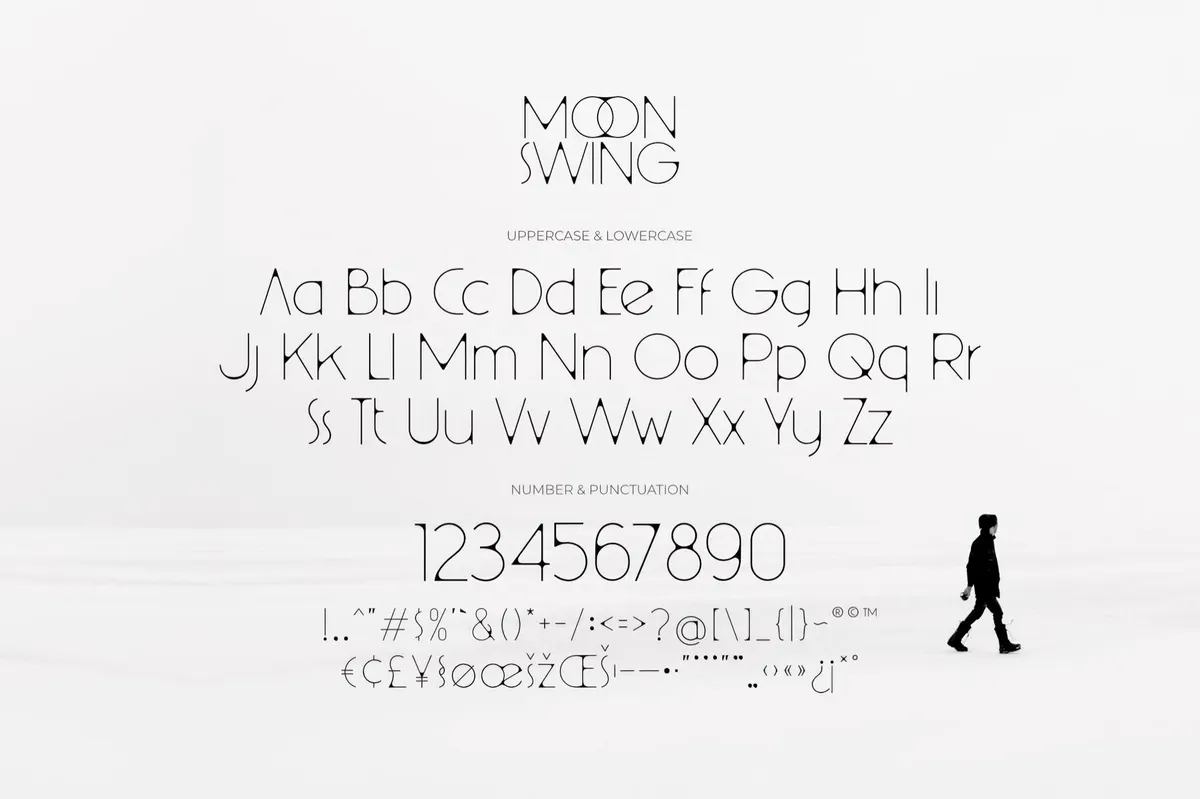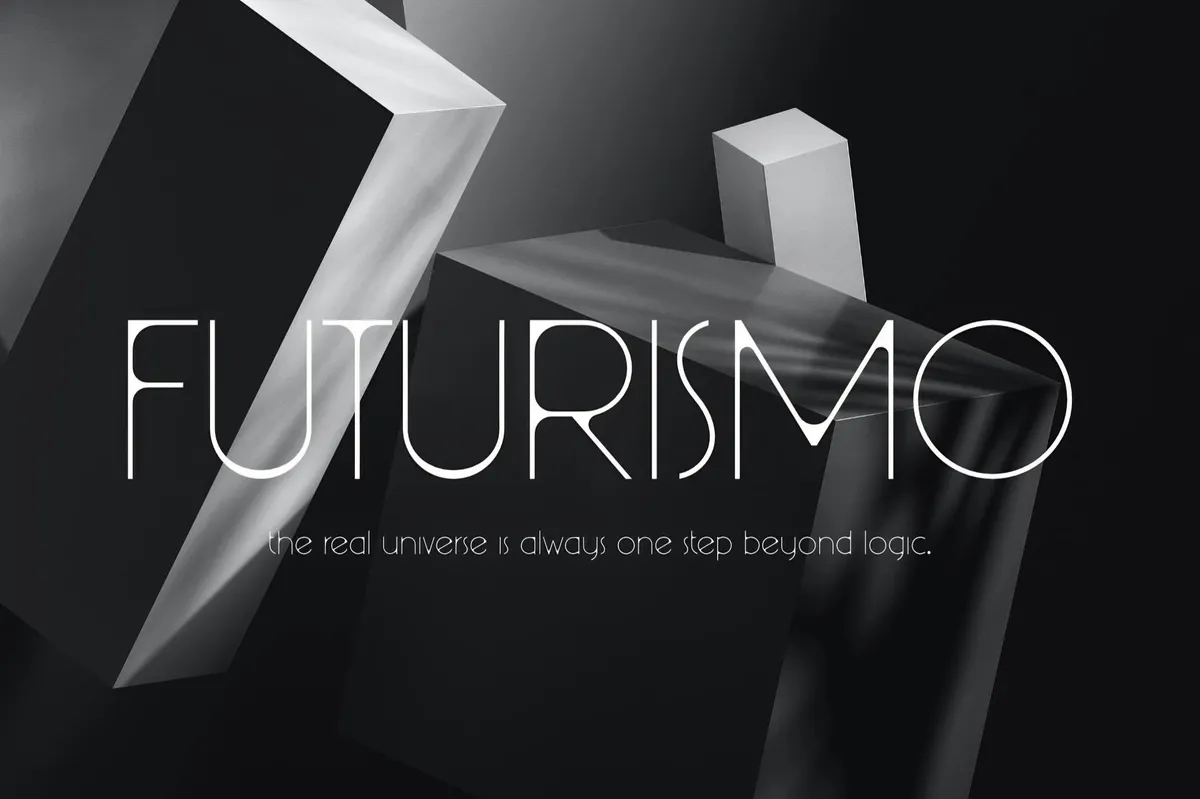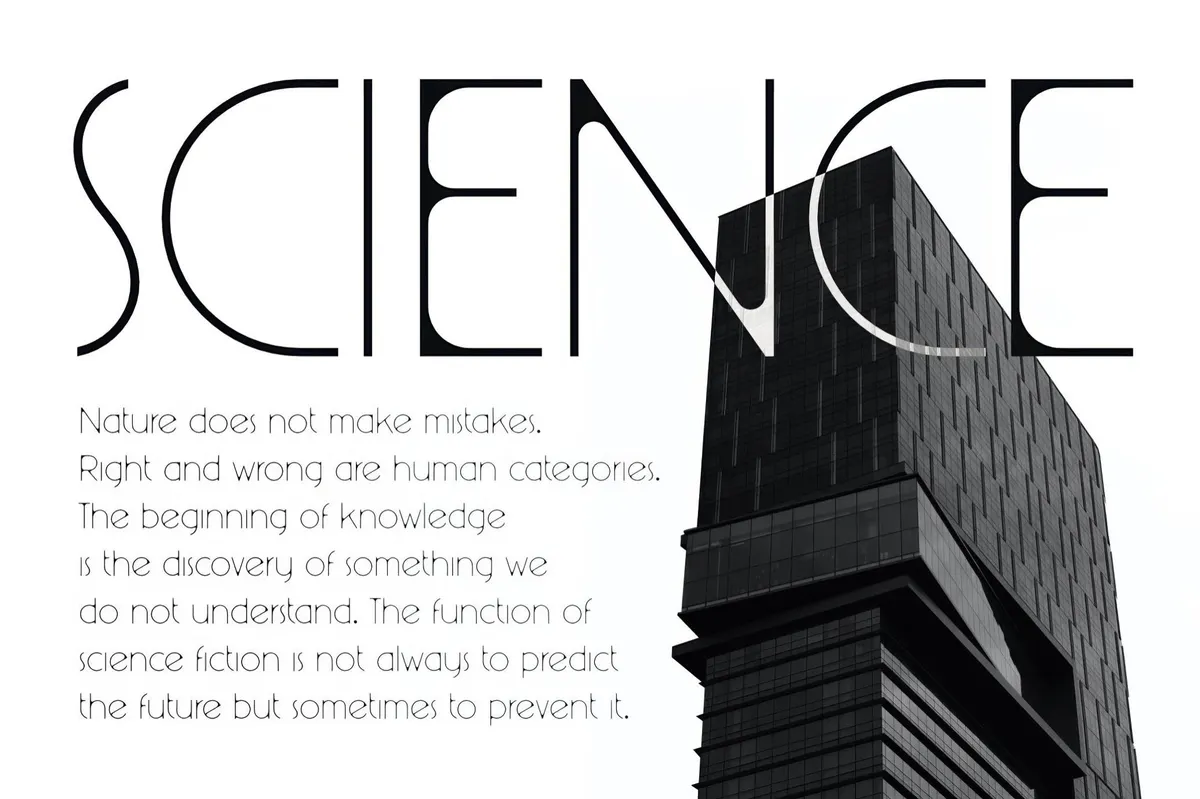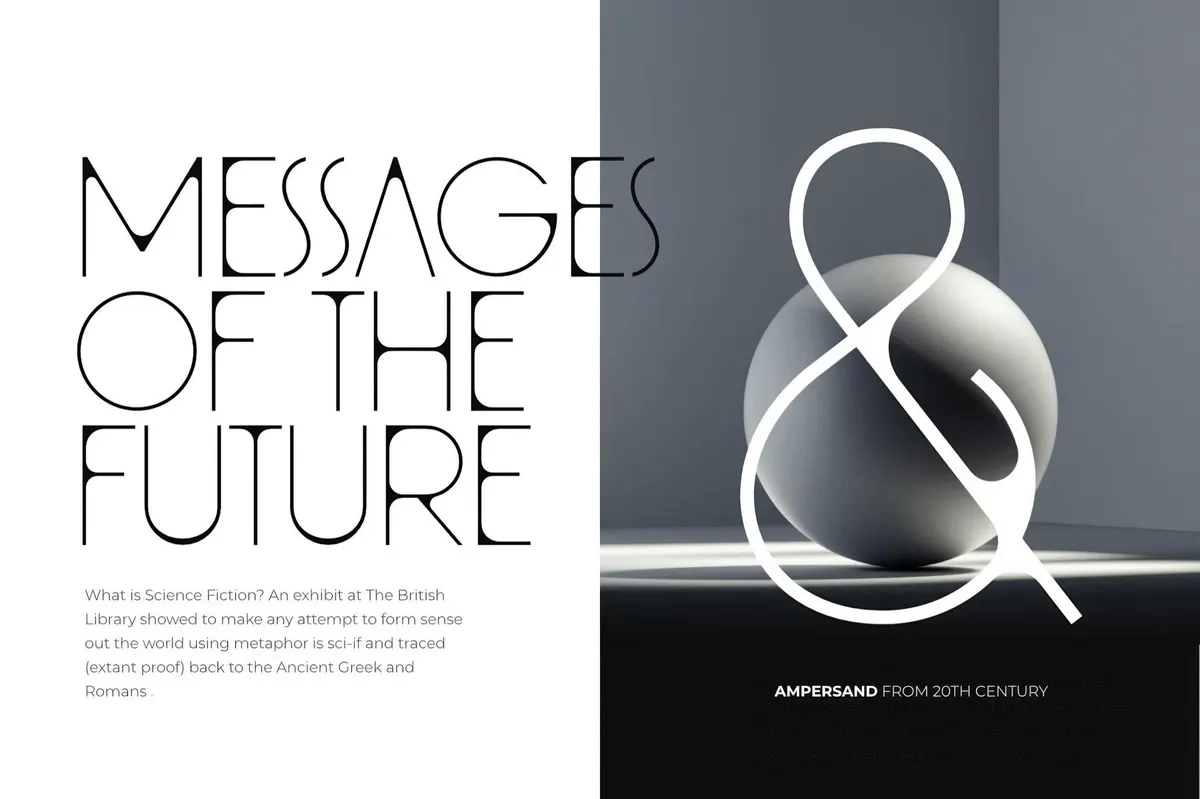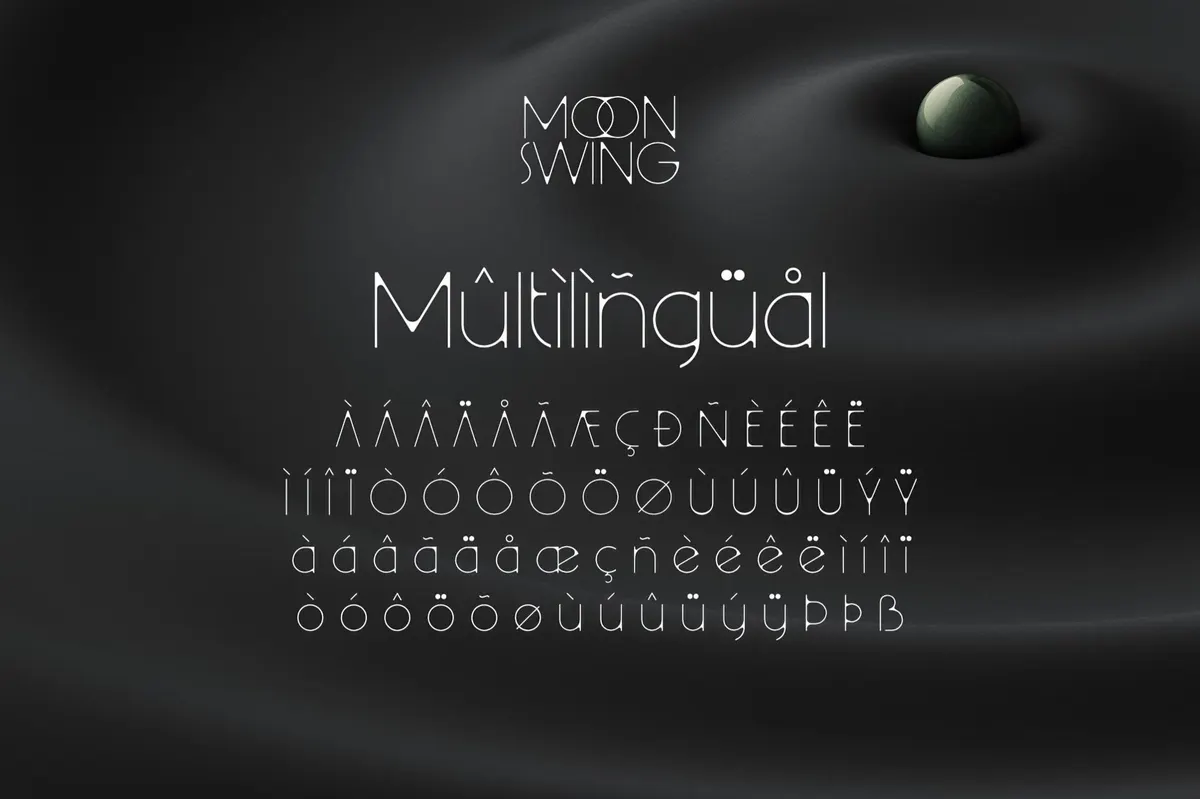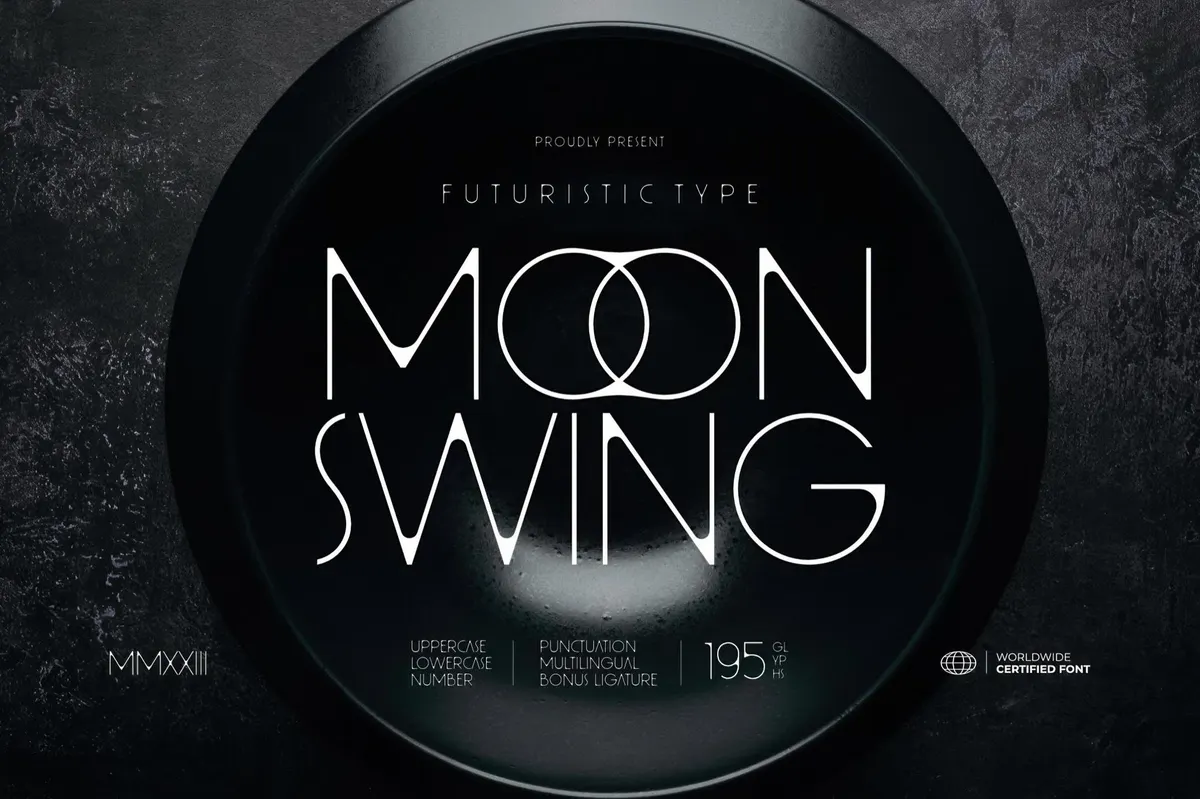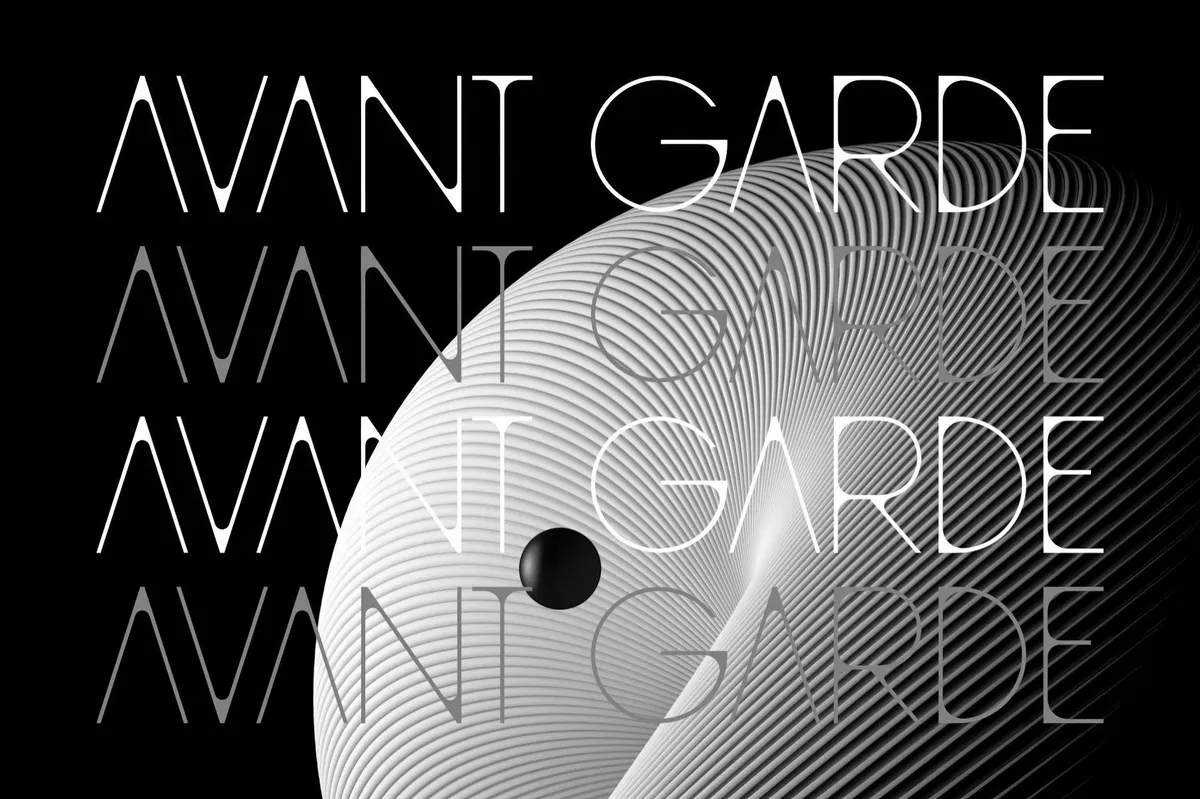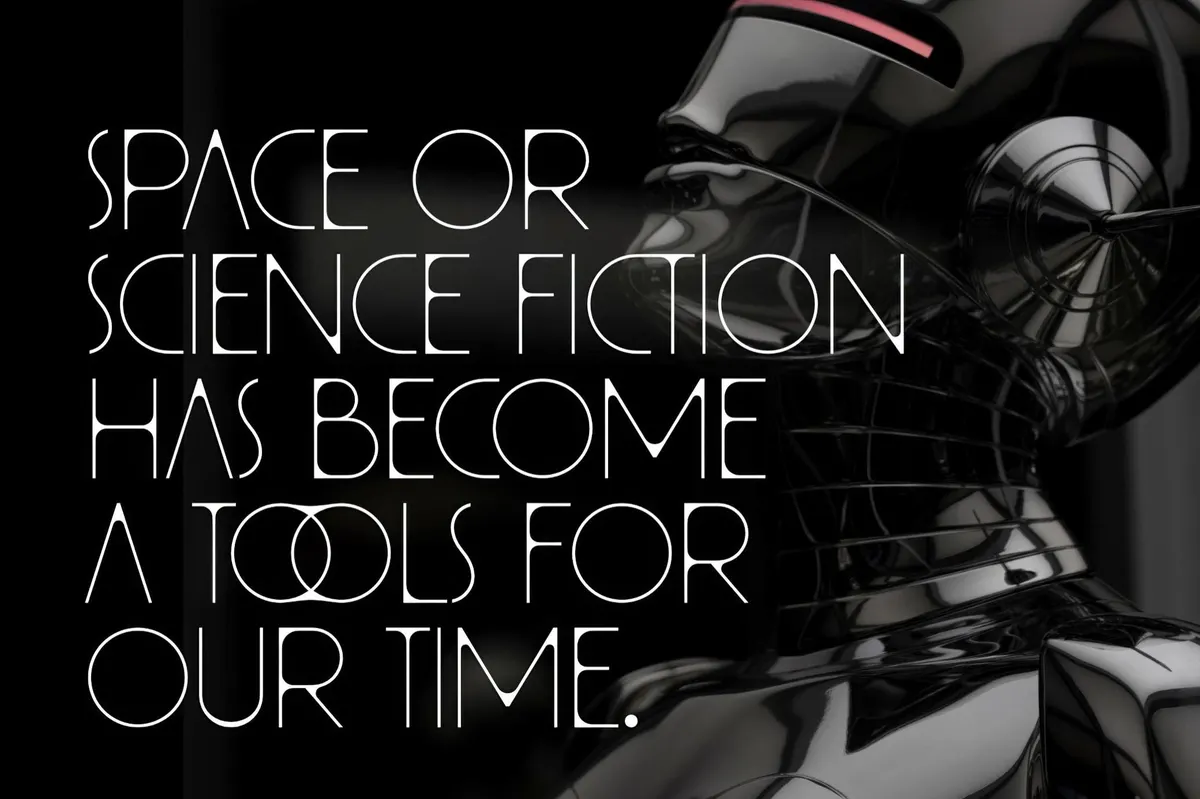
Moon Swing — Futuristic Font
Moon Swing is where sci-fi futurism meets minimalist elegance. Picture the clean, sharp lines of modern sans-serif styling, softened by gentle curves and rounded corners for a geometric aesthetic that feels precise yet approachable. It’s a font that tells stories — perfect for branding projects that need a touch of intrigue, high-fashion logos, luxury packaging, or even as stylish overlays on moody images. Packed with uppercase and lowercase characters, numbers, punctuation, and bonus ligatures, Moon Swing ensures your designs look sleek across languages and formats.